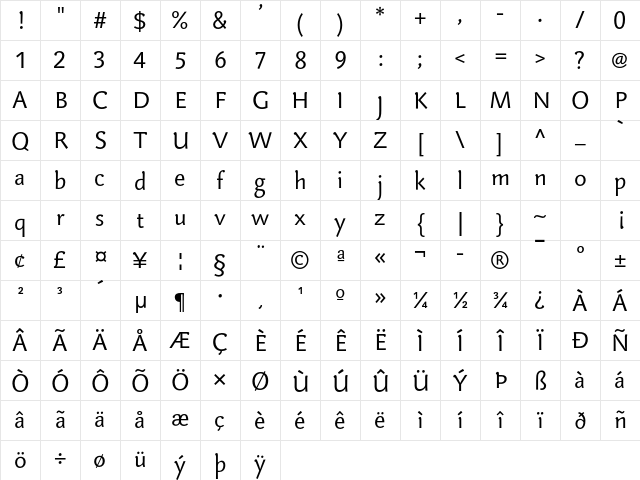
Veronika LT Std Regular Free Font
Veronika LT Std Regular
Design Context for Veronika LT Std
Veronika LT Std is a composed and adaptable typeface that performs quietly and consistently across a wide range of design contexts. Its slender proportions lend an understated elegance to any composition.
Pro Tip: Use Veronika LT Std in both headline and body roles to test its range before committing to a single application.